Arabic typography is a unique art form that blends beauty and function. It’s essential to find the perfect font that can transform your design. With Canva’s diverse range of Arabic fonts, designers can add a touch of cultural richness and aesthetic appeal to their creations. Each font has its character, emotion, and style, offering endless possibilities for creative expression. In this article, we explore 15 must-have Arabic fonts in Canva that are perfect for creating stunning designs. These Arabic fonts offer a range of styles and designs to suit various types of projects, from formal to modern and playful. Experiment with these fonts in Canva to enhance your designs and create visually appealing content in Arabic.
1. Almarai
Why it is a must-have Arabic Font: A clean and simple font that provides great readability, Almarai is designed for clarity and ease of reading. Its straightforward appearance makes it perfect for educational and informative materials, where clear communication is key.
2. Amiri
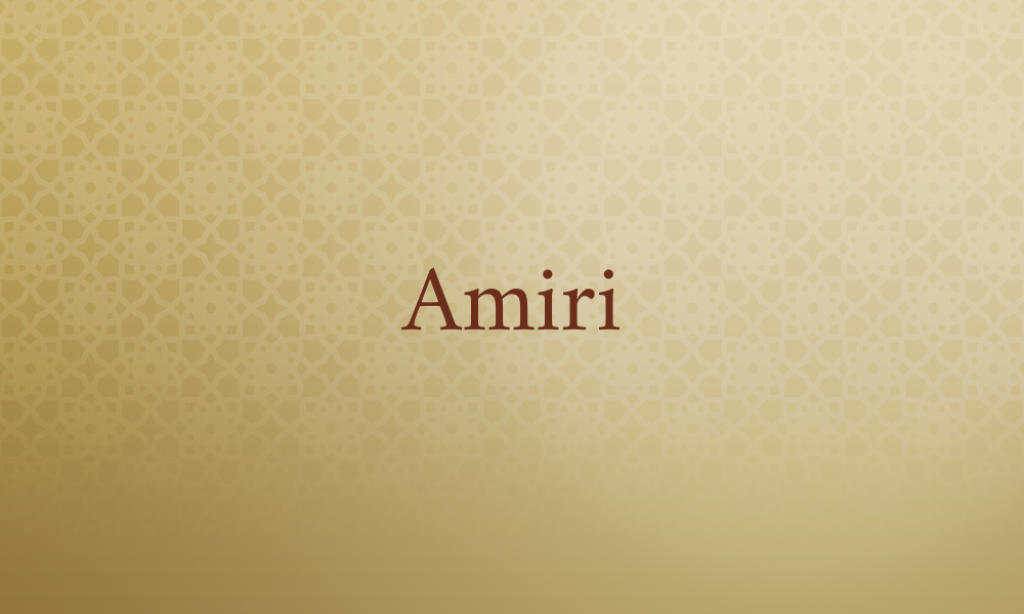
Why it is a must-have Arabic Font: This is a classical Arabic typeface in the Naskh style for body text. It is inspired by traditional Arabic calligraphy and is suitable for both print and digital media. It is one of the few metal typefaces that were used in typesetting the Koran, making it a good source for a digital typeface to be used in typesetting Koranic verses.
3. Baloo Bhaijaan
Why it is a must-have Arabic Font: A playful, bold font with a modern twist, Baloo Bhaijaan is perfect for casual and youthful designs. Its rounded characters and friendly appearance make it suitable for informal, fun, and creative projects, providing a modern and approachable vibe.
4. Childos Arabic
Why it is a must-have Arabic Font: Specifically designed with children in mind, Childos Arabic features simple, clear letterforms and a playful style, making it perfect for educational materials, children’s books, and any design intended for young audiences.
5. Droid Arabic Kufi
Why it is a must-have Arabic Font: A geometric sans-serif font with a contemporary style, Droid Arabic Kufi is clear and readable, making it excellent for digital screens and user interfaces. Its modern and clean lines ensure legibility and make it a solid choice for tech and digital-focused projects.
6. Hacen Tunisia
Why it is a must-have Arabic Font: A font that combines traditional calligraphic styles with modern design elements, Hacen Tunisia is elegant and sophisticated. Its detailed and artistic characteristics make it perfect for high-end and luxury designs, where a touch of elegance and exclusivity is required.
7. Jomhuria
Why it is a must-have Arabic Font: Why it is a must-have: A bold and traditional Arabic font that captures the essence of classical calligraphy. Its strong, flowing lines make it ideal for titles and headers, providing a sense of authority and elegance. Jomhuria’s detailed design stands out in artistic and formal projects, making it a top choice for those seeking to incorporate traditional Arabic aesthetics.
8. Lalezar
Why it is a must-have Arabic Font: Inspired by vintage signage and retro style, Lalezar captures the nostalgic feel of the mid-20th century. Its unique character makes it perfect for projects that require a touch of historical charm or a retro vibe, standing out in designs that aim to be distinctive and eye-catching.
9. Lateef
Why it is a must-have Arabic Font: Known for its legibility and clear, handwritten style, Lateef is perfect for body text and informal designs. Its relaxed and approachable character helps create a friendly and inviting atmosphere in designs, which is why it’s essential for projects that aim to communicate directly and personally with the audience.
10. Lemonada
Why it is a must-have Arabic Font: A contemporary font that blends traditional Arabic calligraphy with a modern, clean aesthetic. Its friendly and approachable style makes it suitable for a wide range of creative and casual designs, adding a fresh and modern touch to projects.
11. Madani Arabic
Why it is a must-have Arabic Font: Reflecting the elegance of traditional Arabic script with a modern touch, Madani Arabic is suitable for formal and ceremonial purposes. Its sophisticated and refined look makes it a top choice for wedding invitations, certificates, and official documents.
12. Mirza
Why it is a must-have Arabic Font: A stylish and distinctive font with strong character and unique features, Mirza is excellent for making a statement and adding personality to designs. Its assertive and dynamic style is suitable for impactful headlines and artistic projects.
13. Noto Naskh Arabic
Why it is a must-have Arabic Font: Part of the Noto font family designed to support all languages with a harmonious look and feel, Noto Naskh Arabic is versatile and highly legible. Its comprehensive character set and clear design make it ideal for a wide range of applications, from web content to printed materials.
14. Tajawal
Why it is a must-have Arabic Font: A modern, sans-serif Arabic font that offers a sleek and clean look. Its straightforward and professional appearance makes it suitable for corporate and business materials, making it a must-have for designers looking to create a modern and professional aesthetic.
15. Tufuli Arabic
Why it is a must-have Arabic Font: A font designed specifically for children’s literature and educational materials, Tufuli Arabic features simple, clear letters that are easy for beginners to read. Its accessibility and child-friendly design make it essential for educational contexts, helping to facilitate learning and reading in young learners.